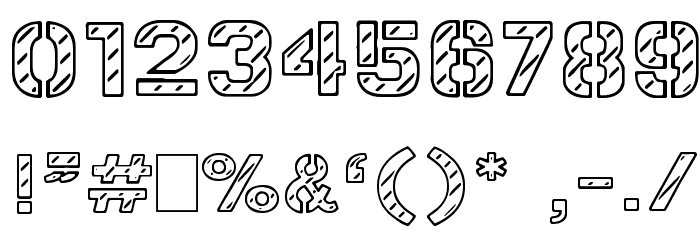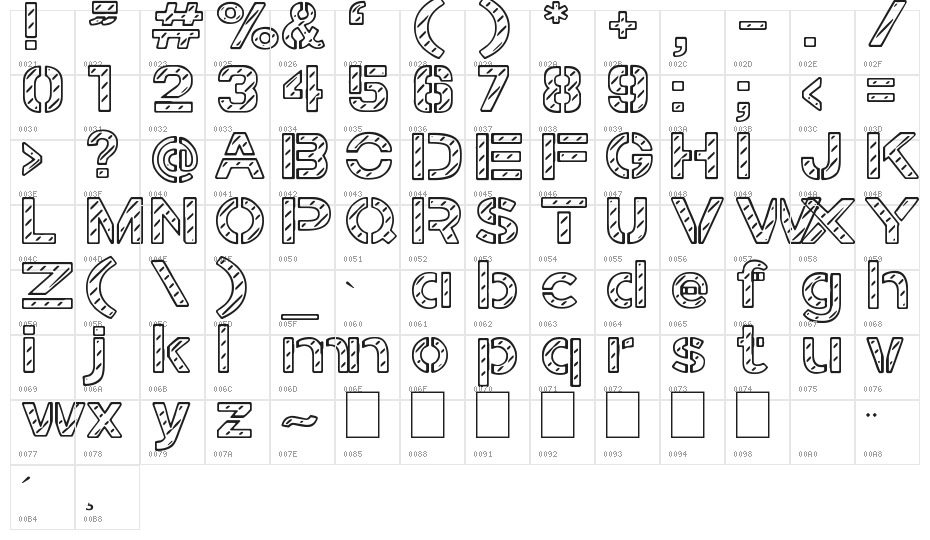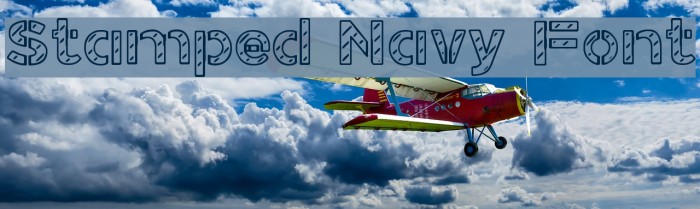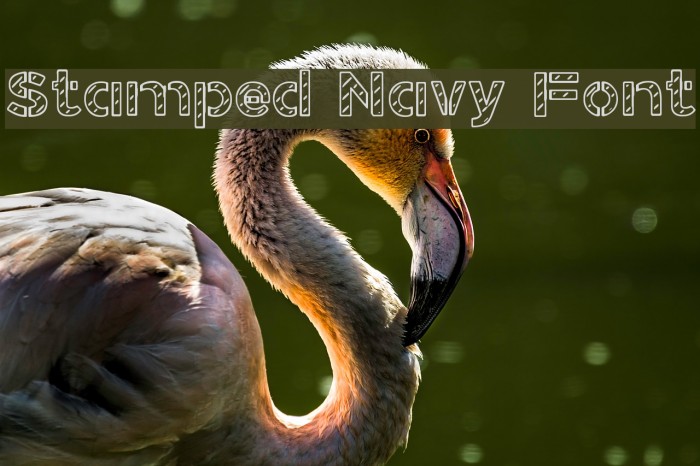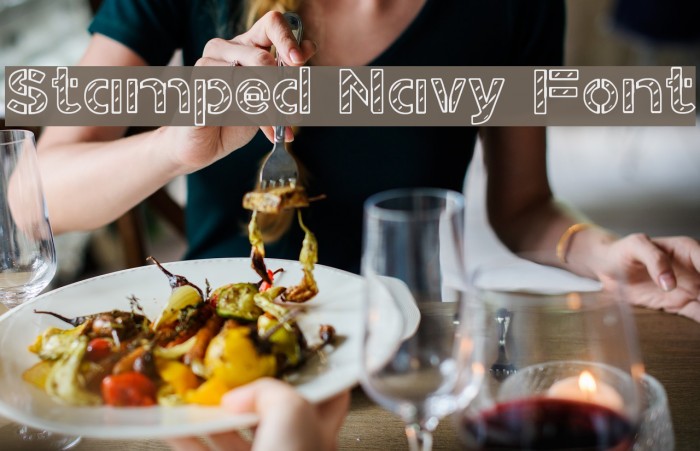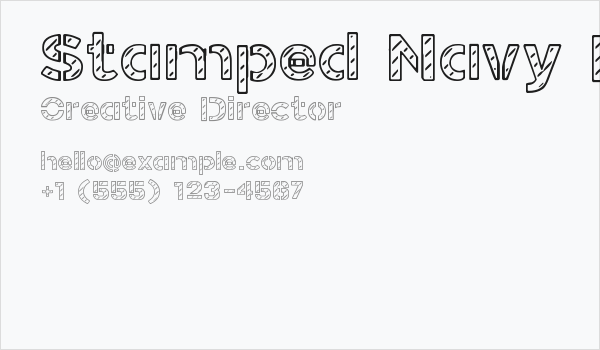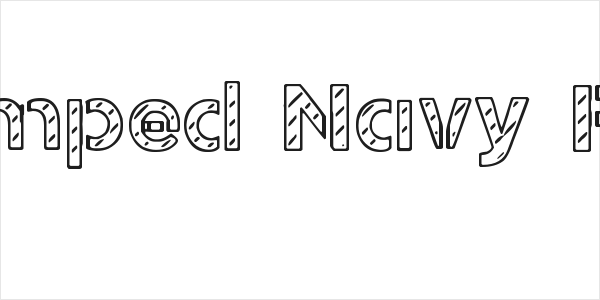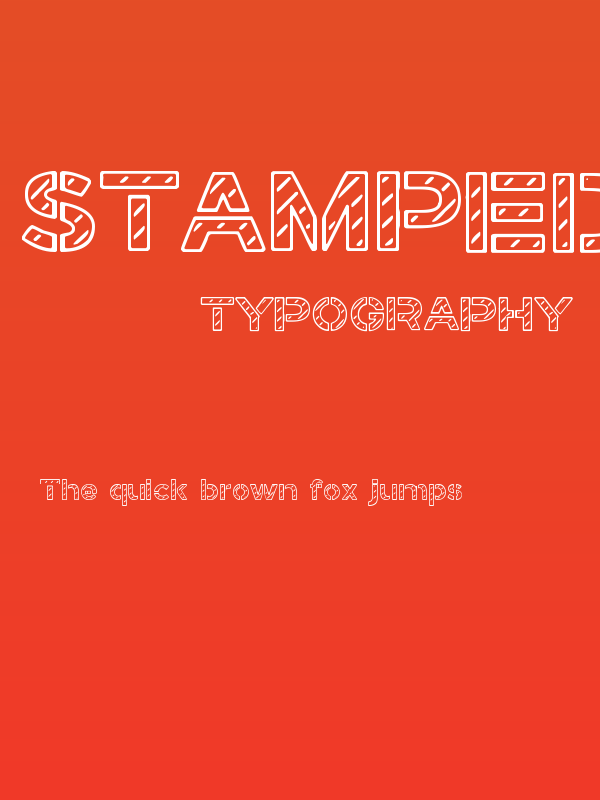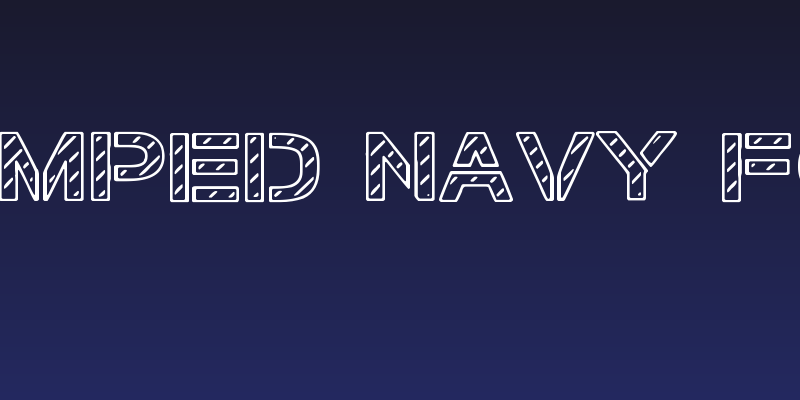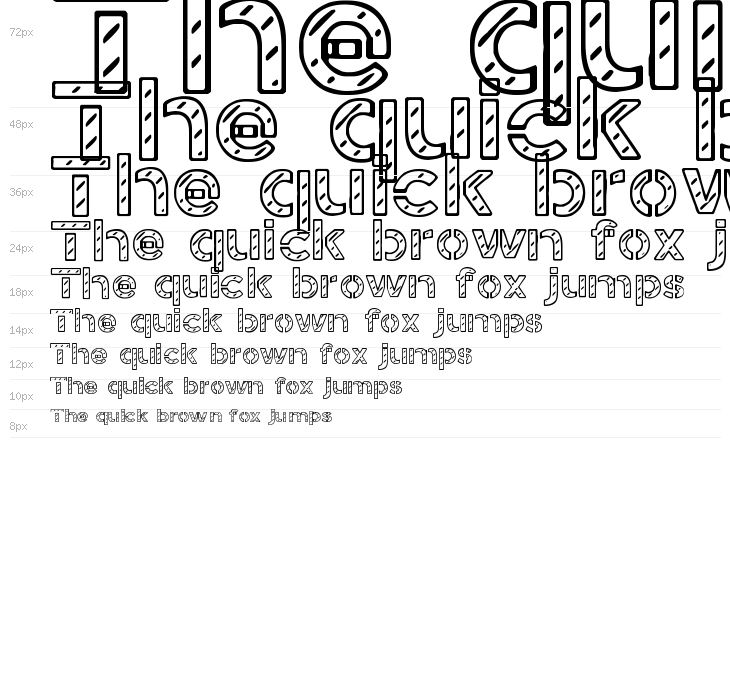
Stamped Navy Font Font
Stamped Navy Font Description
This font features a bold, decorative style with a unique stamped effect. The characters are outlined with a consistent thickness, and the interior is filled with diagonal stripes, giving it a dynamic and textured appearance. The uppercase and lowercase letters maintain a uniform design, while the numbers and special characters follow the same stylistic approach. This font stands out due to its playful and eye-catching design, making it suitable for creative and artistic projects.